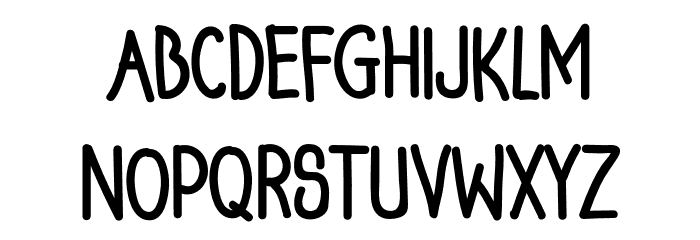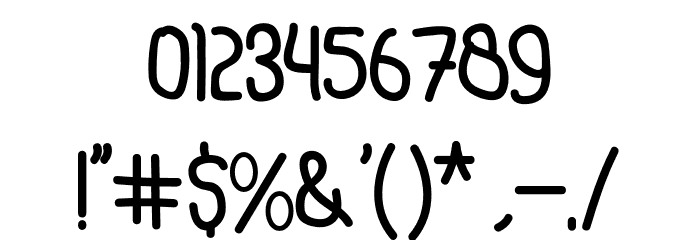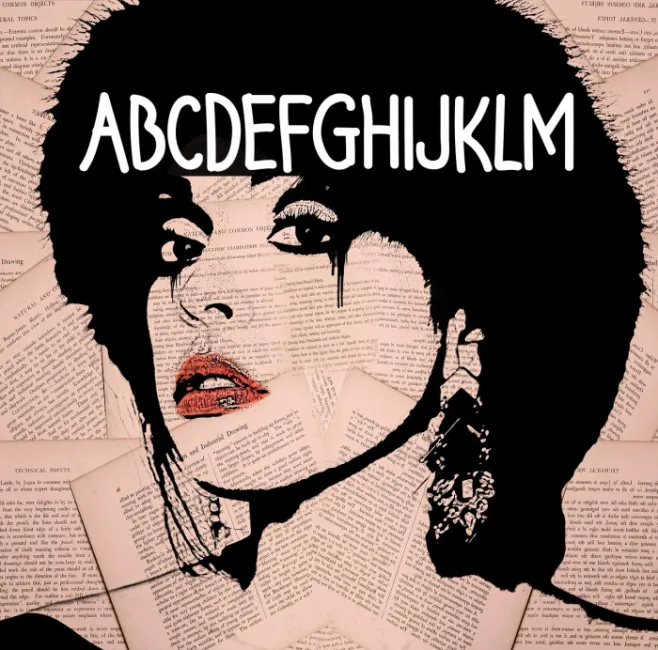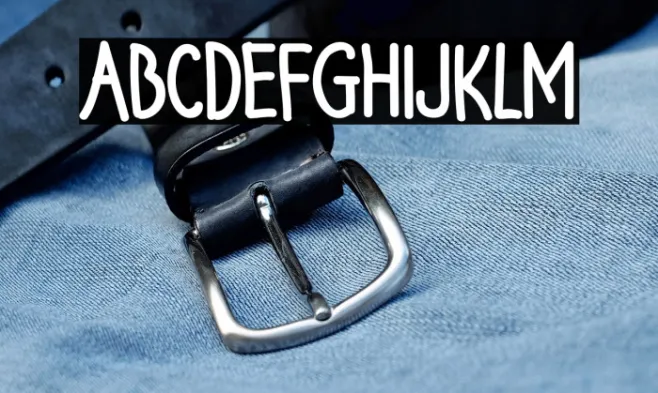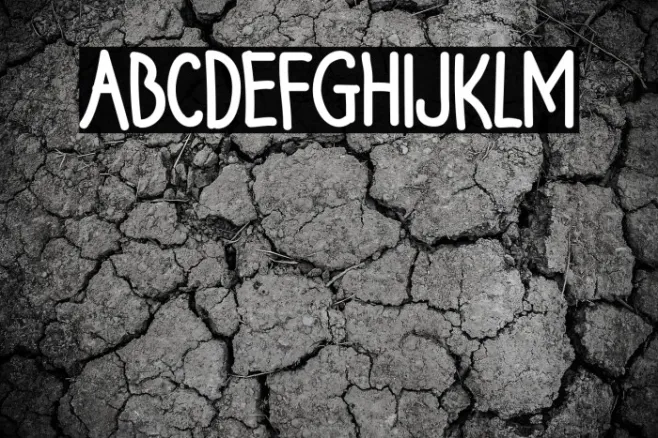
ChristmasHolidayRegular Font
This playful and rounded font exudes a cheerful and festive vibe, perfect for holiday-themed projects. The letters are bold and slightly condensed, with a smooth, flowing style that adds a touch of whimsy. The uppercase and lowercase characters maintain a consistent look, while the numerals and special characters complement the overall design. Its friendly appearance makes it suitable for a variety of creative applications, from greeting cards to festive banners.
A playful, rounded font with a festive and cheerful style.
- Font: ChristmasHolidayRegular
- Proposed Projects: Ideal for holiday cards, festive banners, children's books, and playful branding.
- Overall Style: Playful, Festive
- Use Case: Headlines, Logos, Decorative text